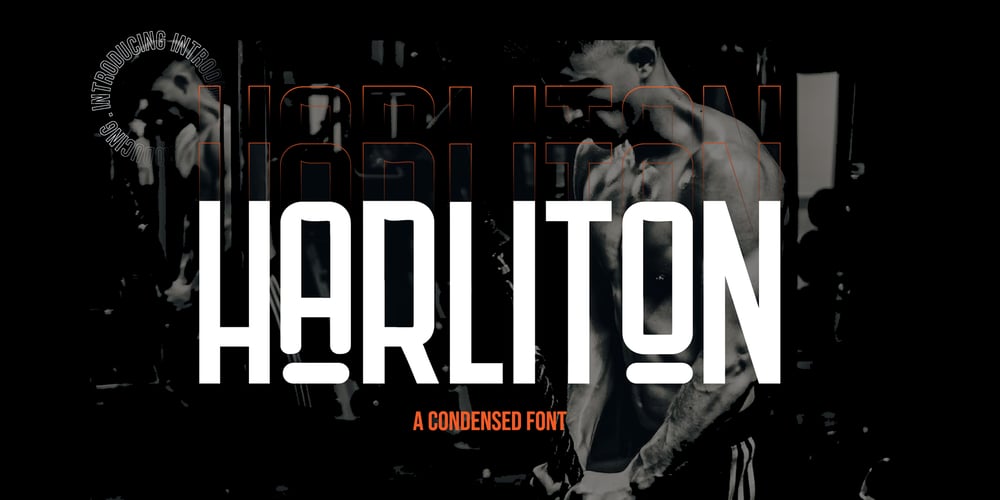
Harliton Font Family was designed by Heri Imanudin and published by Krafted. Harliton contains 1 styles and family package options. Looking to make a statement with your design? Bold, memorable projects deserve bold, memorable fonts.Introducing Harliton – A Condensed Font.Offline or online, Harliton makes your brand noticed. Whether you’re making ads, merch, apps, or websites, this font will fit right in. Give it a go and see how a great font transforms your project.What you’ll get: Multilingual & Ligature Support Full sets of Punctuation and Numerals Compatible with: Adobe Suite Microsoft Office Keynote Pages Software Requirements: The fonts that you’ll receive in the pack are widely supported by most software. In order to get the full functionality of the selection of standard ligatures (custom-created letters) in the script font, any software that can read OpenType fonts will work. We hope you enjoy this font and that it makes your branding sparkle! Feel free to reach out to us if you’d like more information or if you have any concerns.